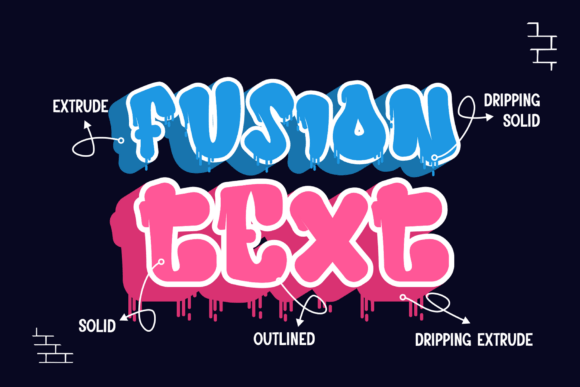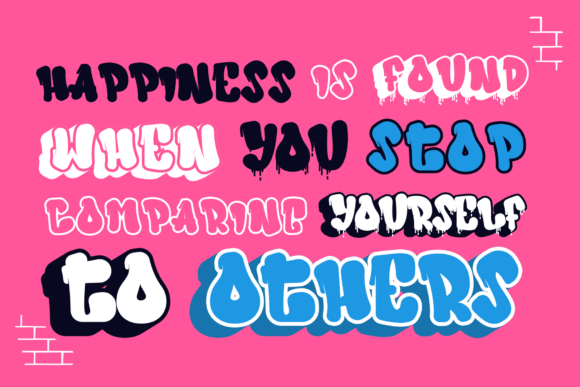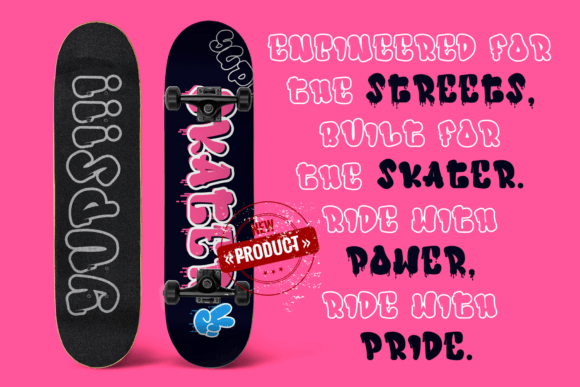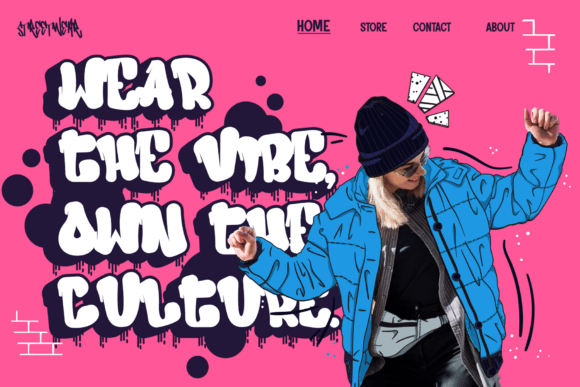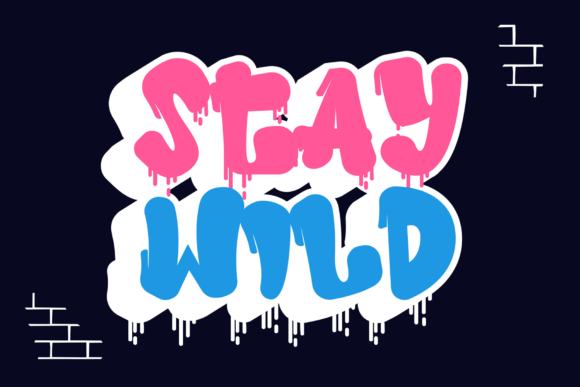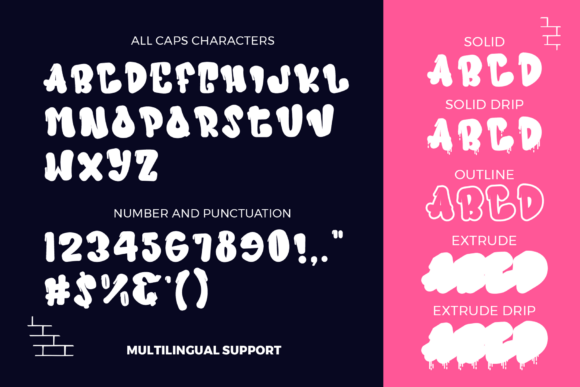
Introduction to Ink Rush Font
Ink Rush is a bold and expressive dripping layered graffiti font crafted to bring an intense, street-inspired energy to any project.
This font offers five distinct styles—solid, dripping solid, outlined, extruded, and dripping extruded—each providing unique looks for a variety of design needs The solid styles offer clean, bold letterforms, while the dripping variations add an edgy, liquid effect that mimics fresh spray paint in motion.
Key Features of Ink Rush Font